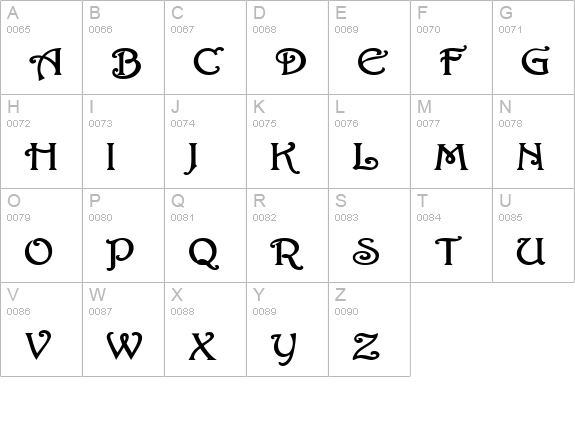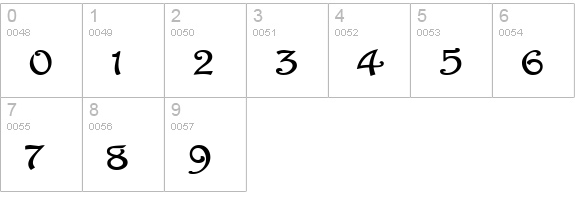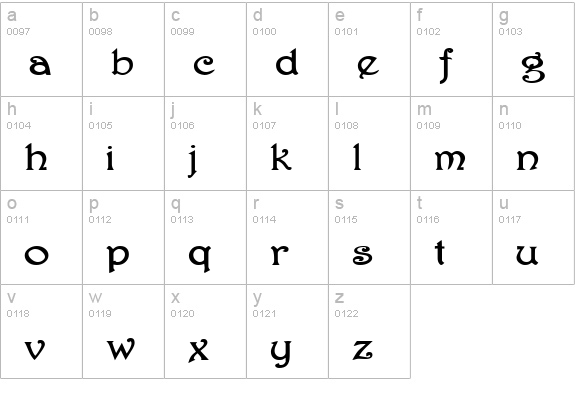
ParisianExtended Bold is a strong, high-contrast variant in the ParisianExtended typeface family \xE2\x80\x94 well suited to headlines, attention-grabbing titles, and strong calls-to-action.
ParisianExtended Bold is a captivating and elegant font that effortlessly exudes a sense of sophistication and refinement. With its bold and striking letterforms, this font is perfect for making a bold statement or adding a touch of class to any project. The ParisianExtended Bold font is characterized by its strong, confident strokes and graceful curves, which combine to create a distinctive and memorable visual impact. Whether used for headlines, logos, or branding materials, this font commands attention and leaves a lasting impression. One of the best things about ParisianExtended Bold is that it is freely available to download at FontsMarket.com. This means that you can access and utilize this stunning font without any cost or hassle. It's a fantastic opportunity to add a touch of Parisian charm to your designs without breaking the bank. The versatility of ParisianExtended Bold allows it to be used in a wide range of projects, from print materials such as magazines and brochures to digital platforms like websites and social media graphics. Its timeless appeal and classic aesthetic ensure that it will never go out of style, making it a valuable asset for any designer or creative professional. Whether you're aiming to create a striking visual identity or elevate the look and feel of your designs, ParisianExtended Bold is the perfect choice. Its bold and confident character, combined with its freely accessible nature, make it an indispensable tool for any designer looking to make a lasting impression. Download ParisianExtended Bold today from FontsMarket.com and unlock the true potential of your designs.